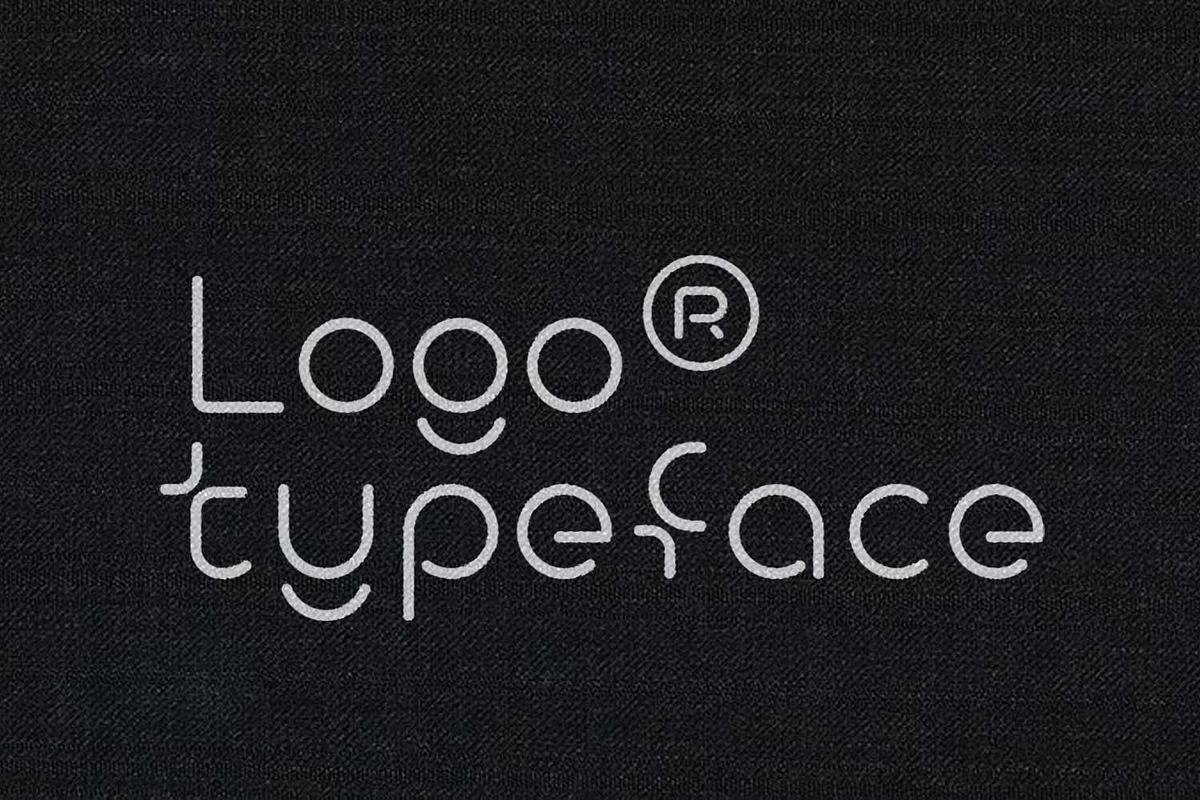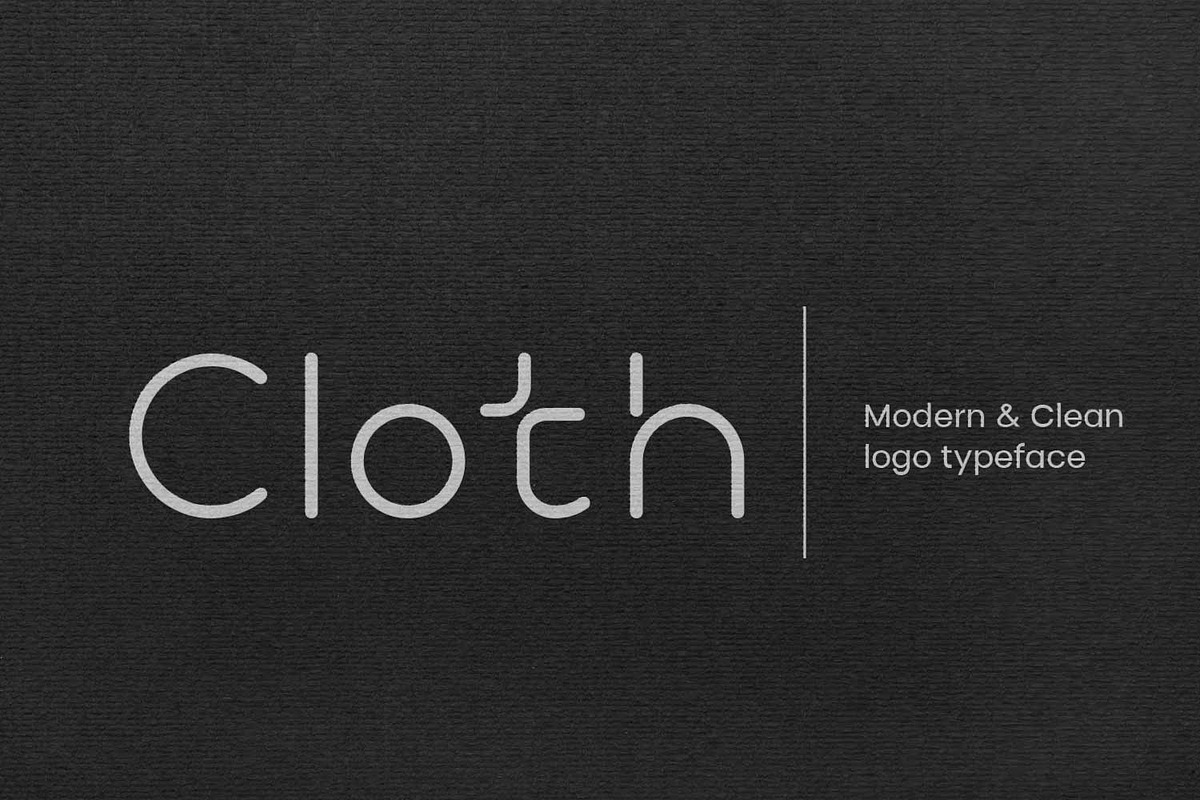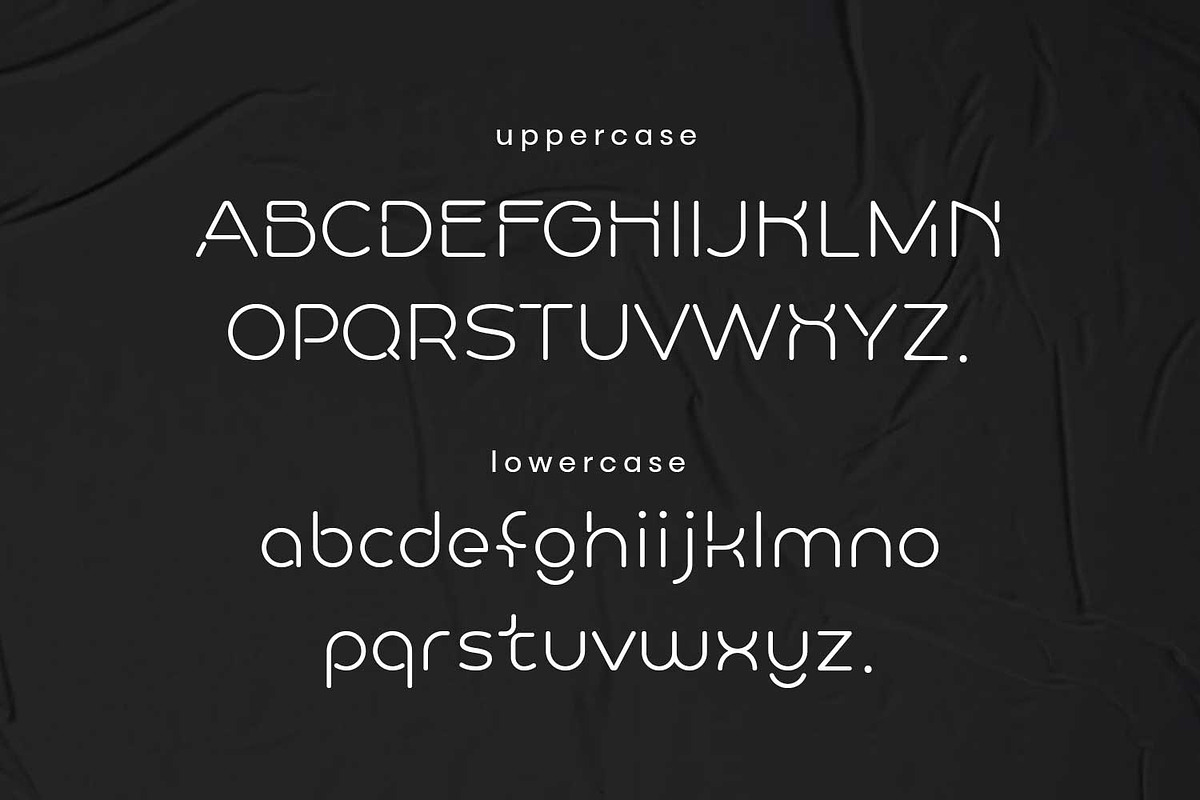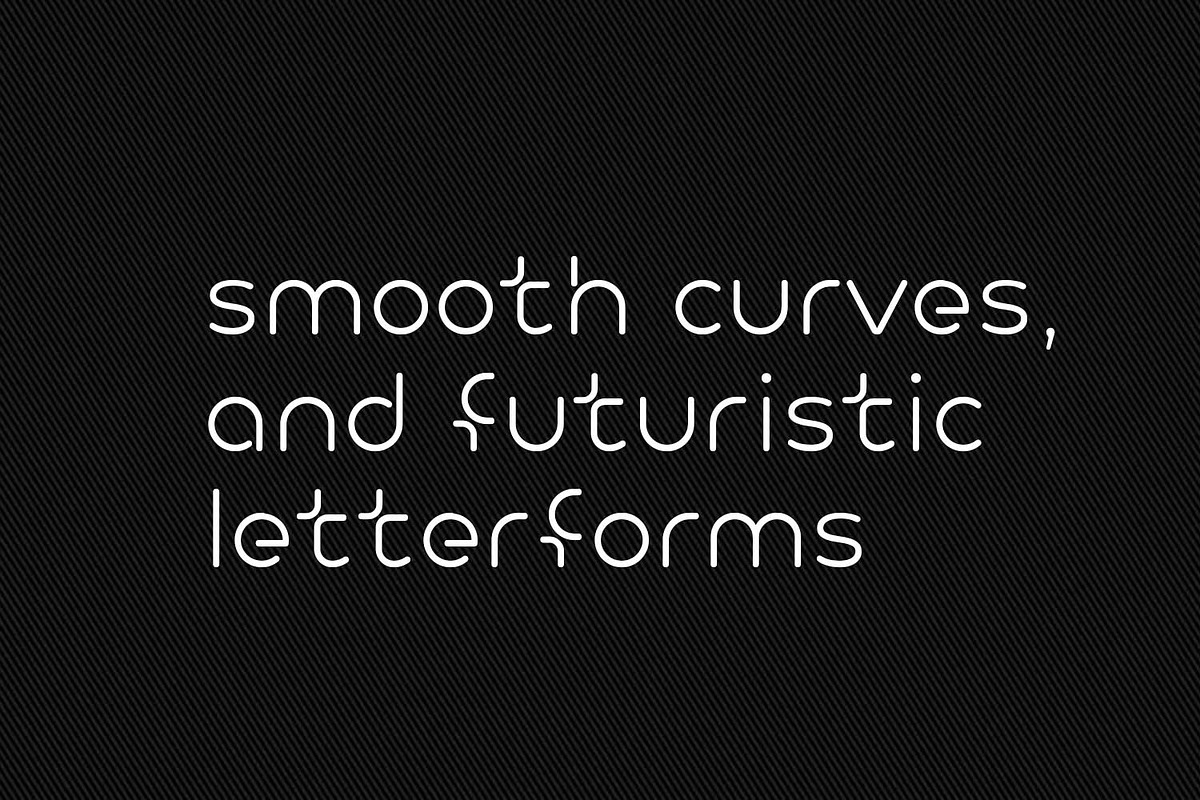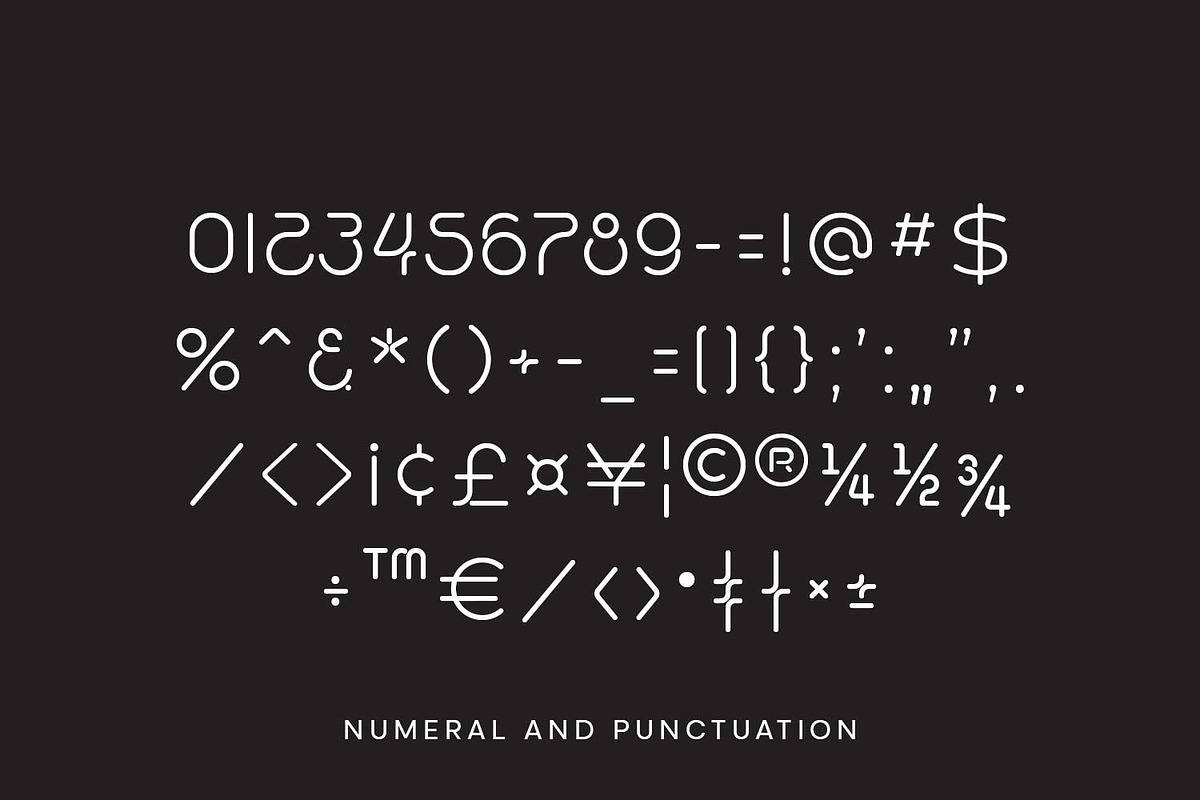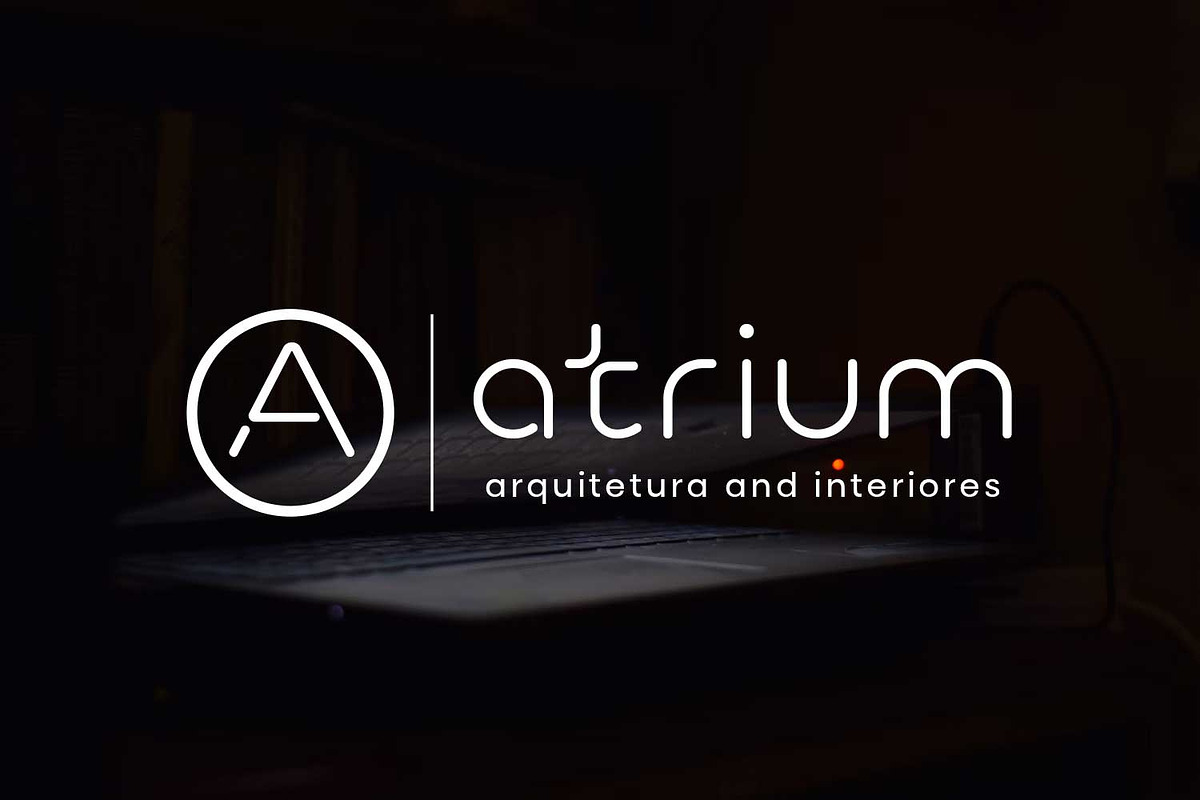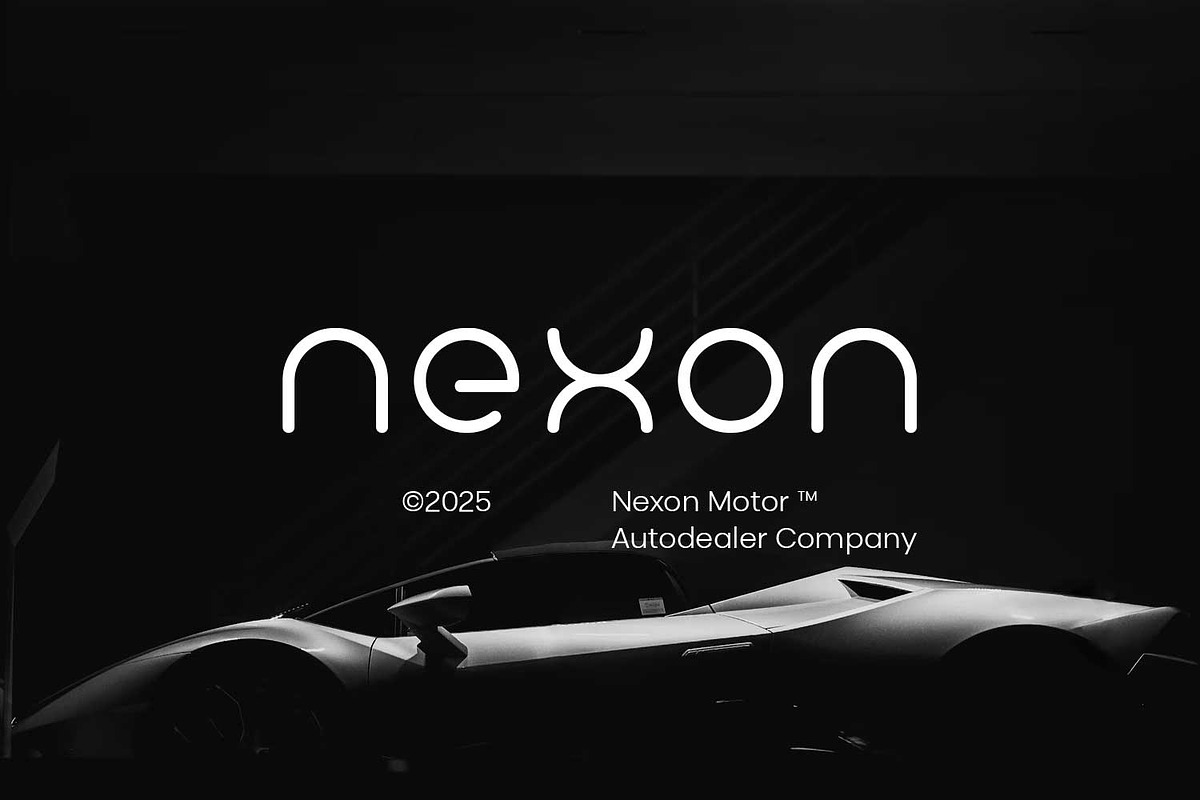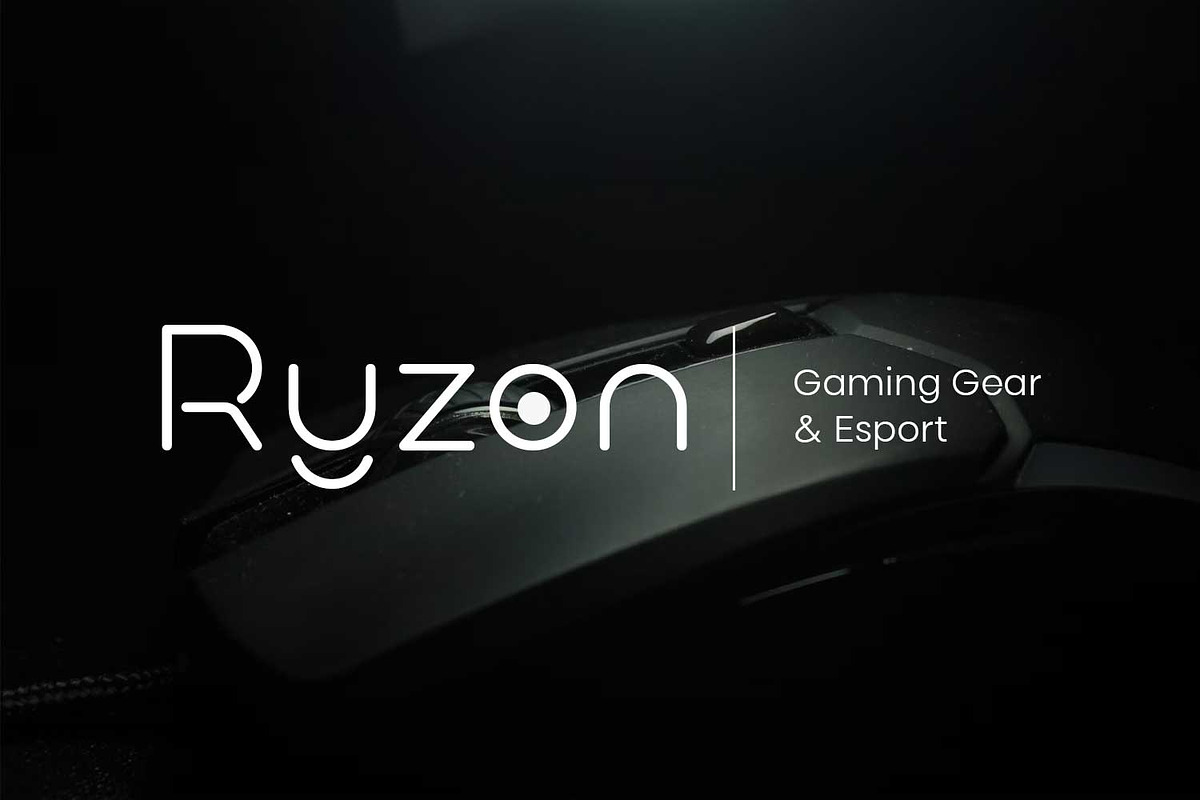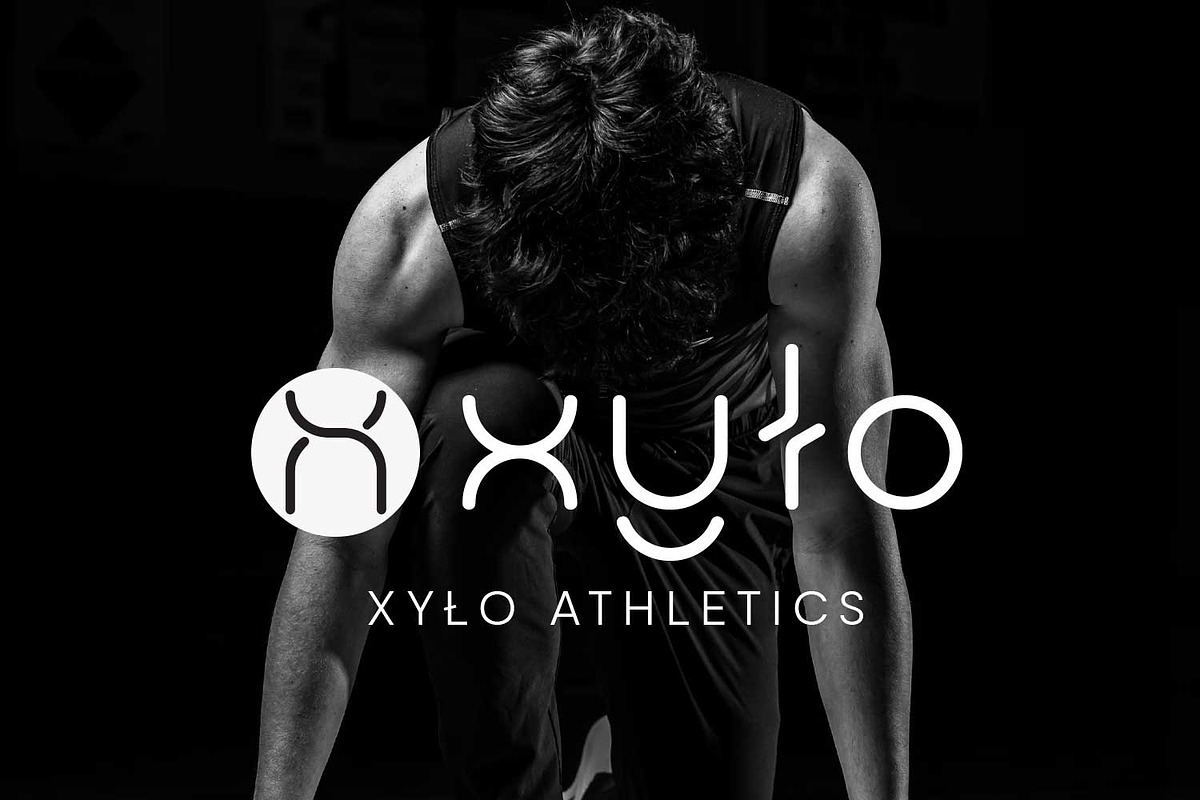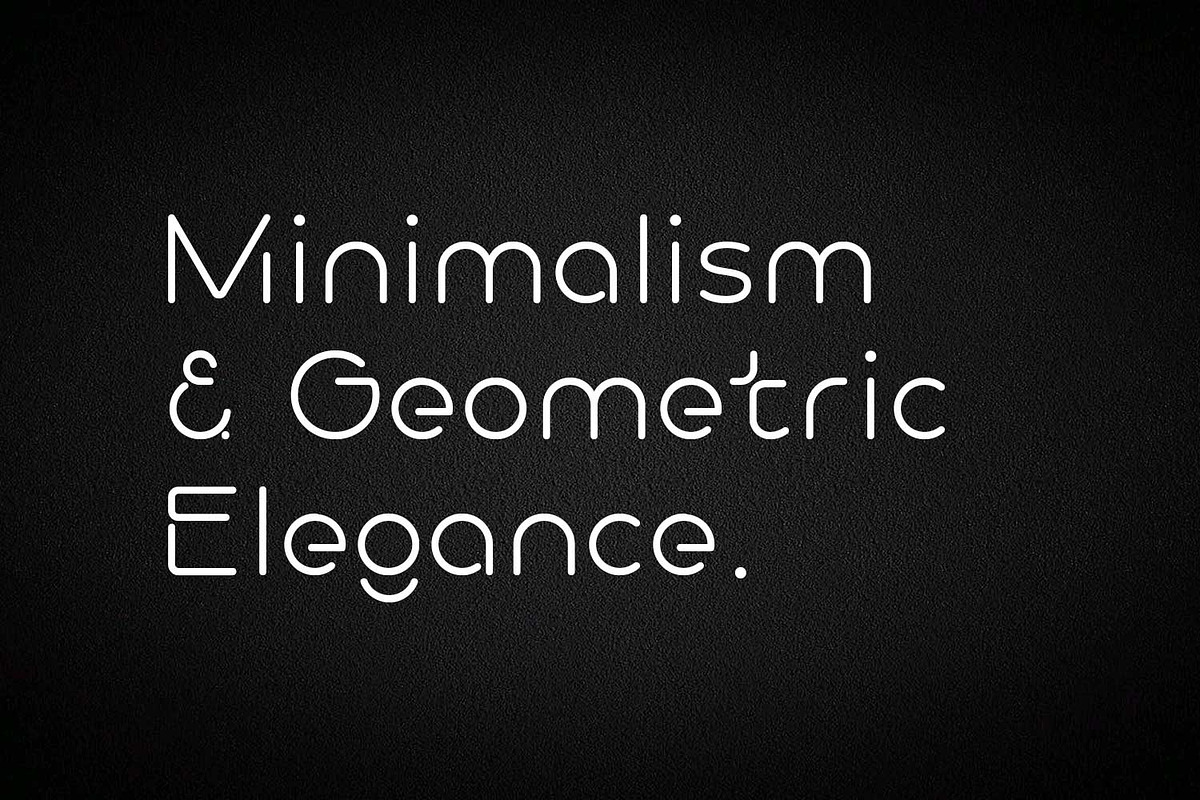
Cloth
Cloth is a refined logotype font that blends contemporary minimalism with subtle character. Its clean curves, generous spacing, and thoughtfully crafted details give it a timeless quality that feels both modern and elegant. Designed to elevate visual storytelling, Cloth performs beautifully in logo marks, packaging, and editorial layouts where clarity and sophistication are key. It includes full support for Latin Extended characters, making it ideal for global brands, and is available in TTF, OTF, and WOFF formats for seamless use across print and digital media. With its understated charm and effortless versatility, Cloth offers a distinctive voice for brands with taste.
Cloth is a clean, modern logotype font with soft curves and global support. Stylish, minimal, and ready for bold branding.